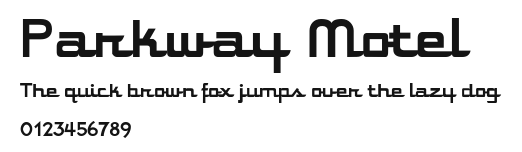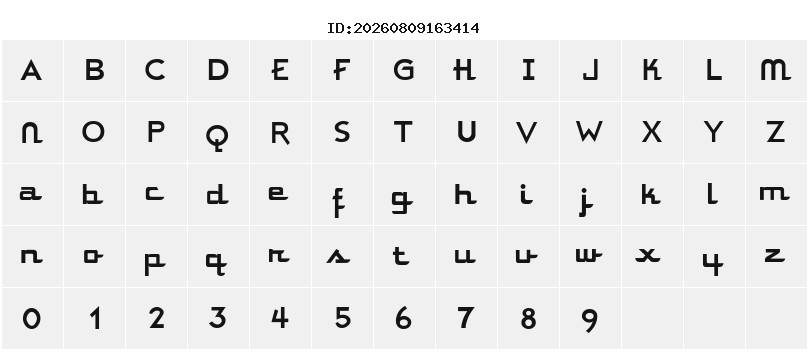
About Parkway Motel.ttf
Parkway Motel.ttf is a modern, elegant sans-serif font designed for ultimate readability and visual harmony. Perfect for branding, headlines, web design, and print materials.